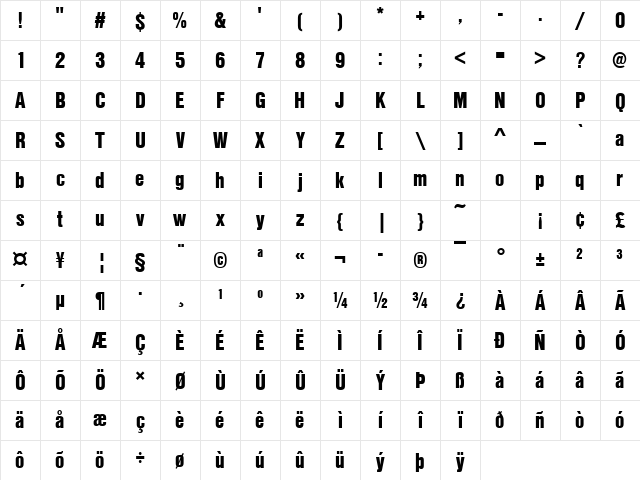
Complete NimbusSanDBlaCon Regular glyph index. Displaying only characters natively supported by NimbusSanDBlaCon Regular font.
NimbusSanDBlaCon is a composed and adaptable typeface that performs quietly and consistently across a wide range of design contexts.